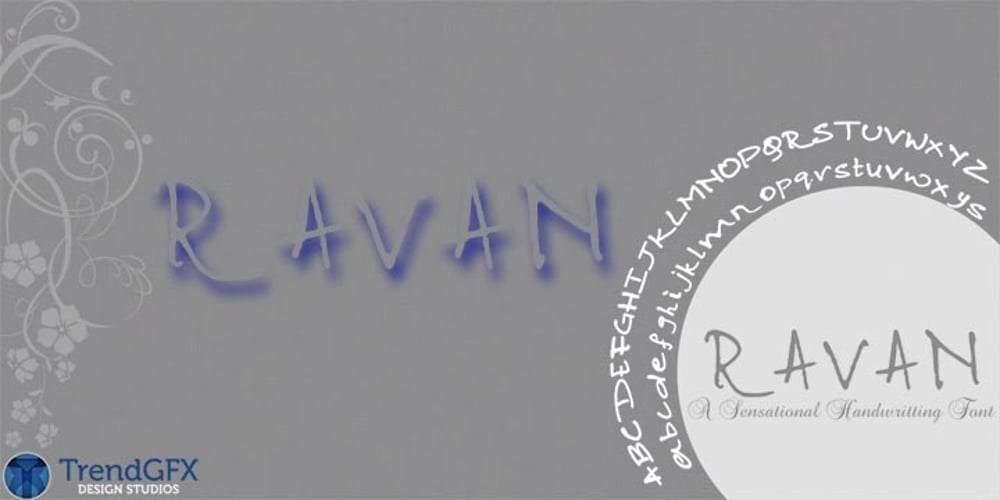
Ravan Font Family was designed by Rahul A. Kumar and published by TrendGFX Design Studios. Ravan contains 1 styles and family package options. From the designers of ECLYPSE and CUBA presents another brand new idea to the 21st century. A typical handwriting font, inspired by one of my friends. I digitized it and called it RAVAN.